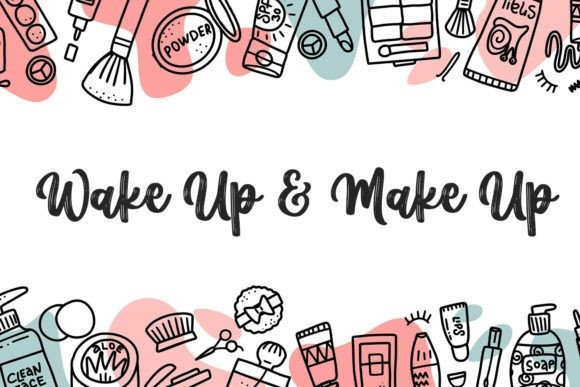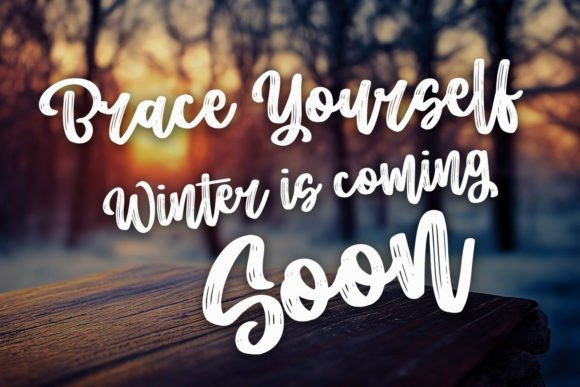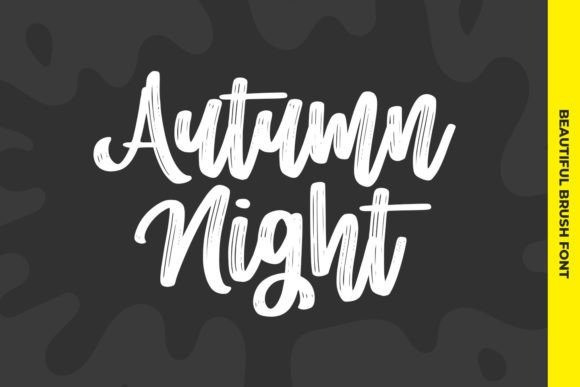
Autumn Night Script Font
Autumn Night Script Font is a natural handwriting font.It is great for lettering, quotes, mugs, tote bag designs, cards, banners, social media, and anything of craft projects that needs a natural touch.